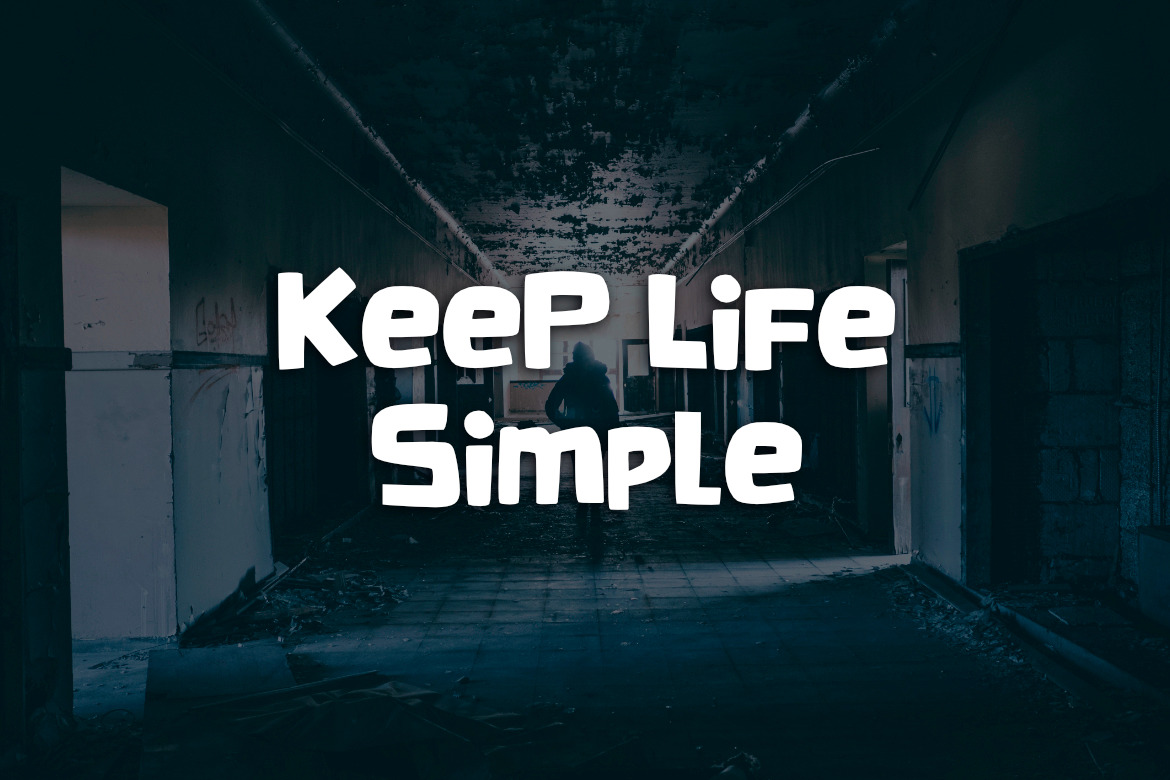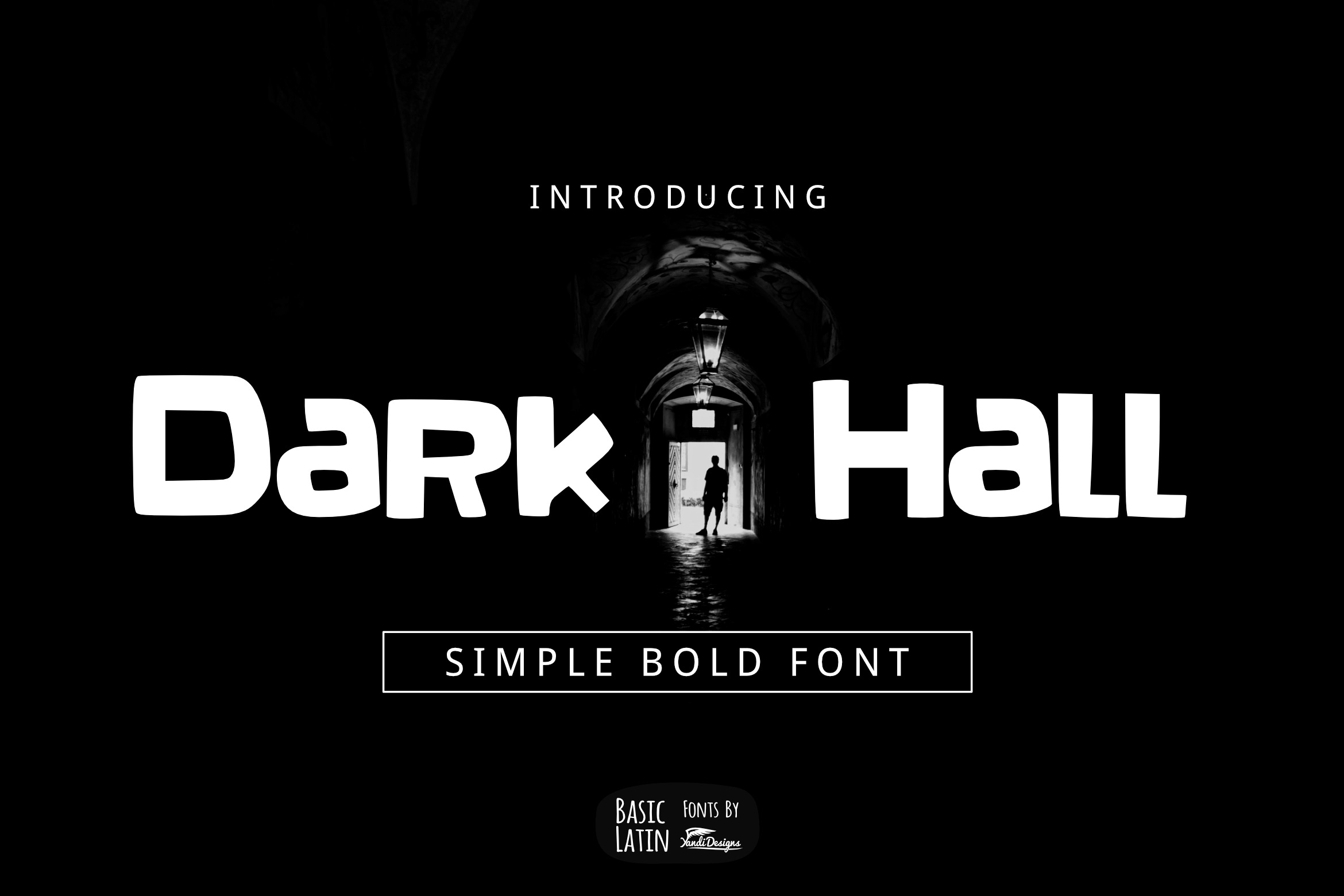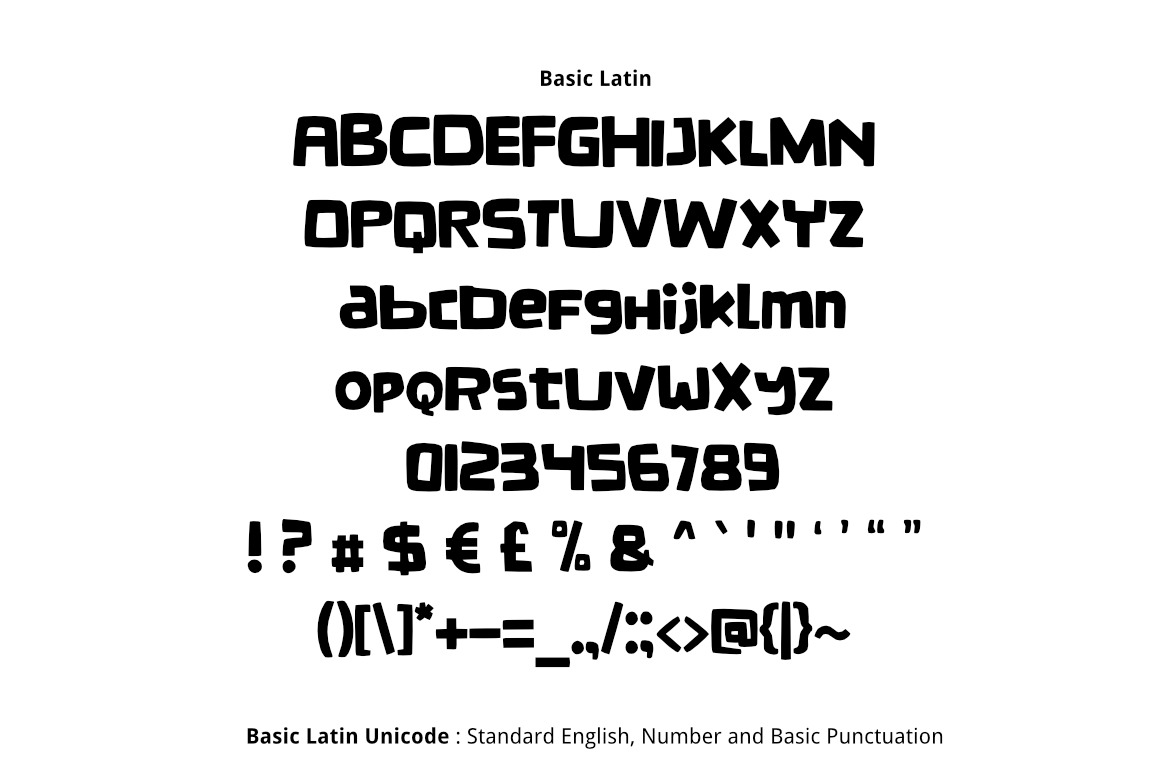
Dark Hall Font Dark Hall font is simple cute multipurpose handmade font , suitable for many project children book, quotes, logo , heading , title etc. What you get 1. Dark Hall font .OTF .TTF and .EOT files format. Unicode Basic Latin (Standard English character , number, symbol) Hopefully you like it :) | Dark Hall Font | YandiDesigns